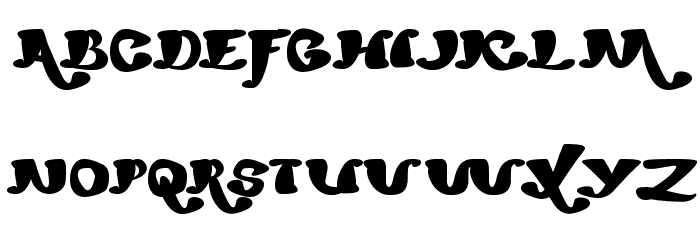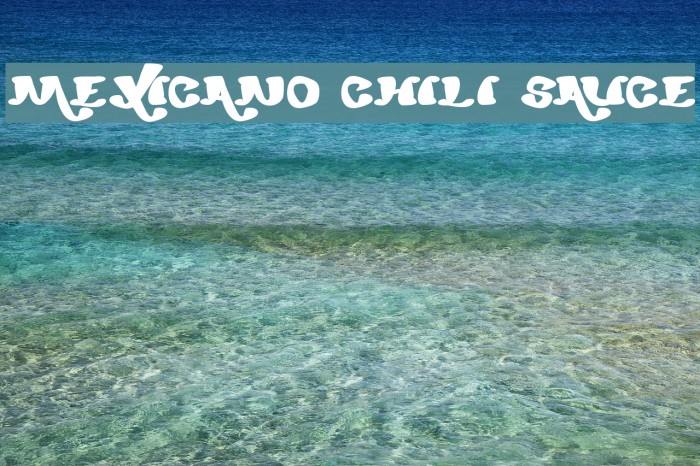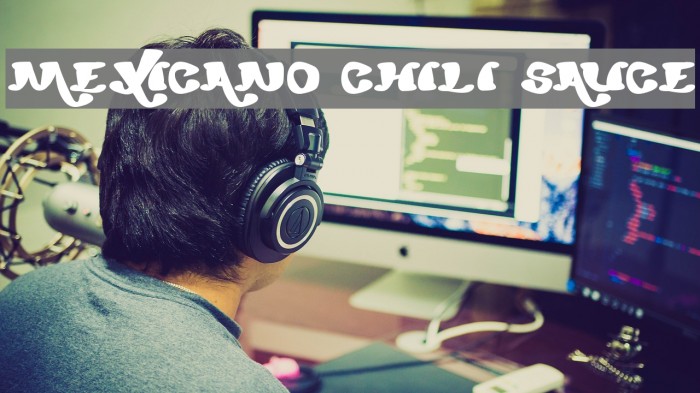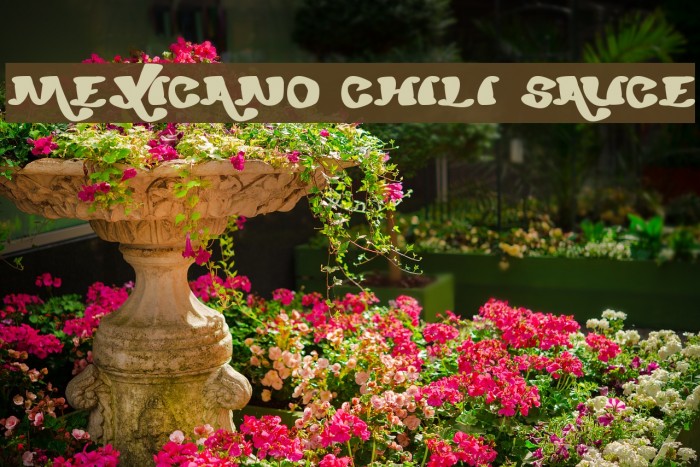
mexicano chili sauce Font
This font features a bold and decorative style with a distinct flair, characterized by its thick strokes and playful curves. The uppercase letters exhibit a strong presence with exaggerated serifs and unique terminal swashes that add a whimsical touch. The overall design is reminiscent of vintage or retro aesthetics, making it suitable for eye-catching displays. The characters are tightly spaced, enhancing the boldness and impact of the text. This font's high contrast between thick and thin strokes further emphasizes its decorative nature, making it ideal for creative and expressive projects.
A bold, decorative font with playful curves and high contrast, perfect for vintage-inspired designs.
- Proposed Projects: Ideal for branding, poster design, packaging, and any project requiring a bold, vintage flair.
- Character Spacing: Tight
- Overall Style: Vintage